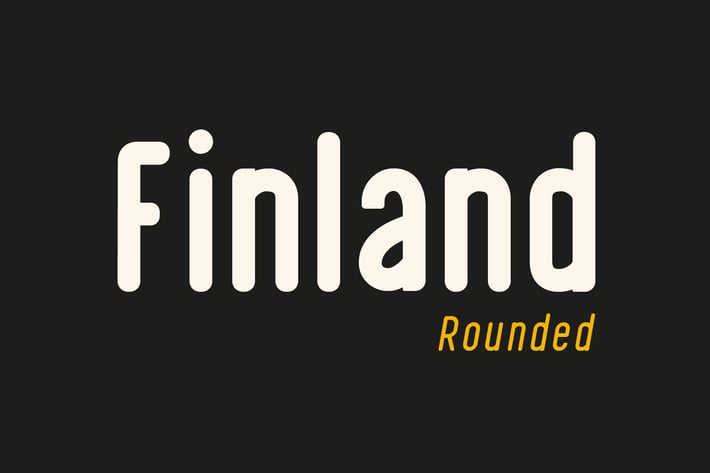
Finland Rounded - Font Family
Finland Rounded Font Family has been crafted from scratch with a structural logic of its own: a fusion of pure geometry and optical balance. Finland Rounded font family comes with 6 Styles, Regular, Italic, Thin, Thin Italic, Bold, Bold Italic. By combining a variety of styles Finland Rounded Font Family is suitable for Logo, greeting cards, quotes, posters, branding, name card, stationary, design title, blog header, art quote, typography
Finland Rounded Font Family also suitable for art, modern envelope lettering or book design, happening style like handdrawn design or watercolor design theme, craft design, any DIY project, book title, wedding font, pop vintage design, or any purpose to make our art/design project look pretty and trendy.
- Upper Case & Lowercase
- Standard Ligatures
- Numerals & Punctuations (OpenType Standard)
- Accents (Multilingual characters)